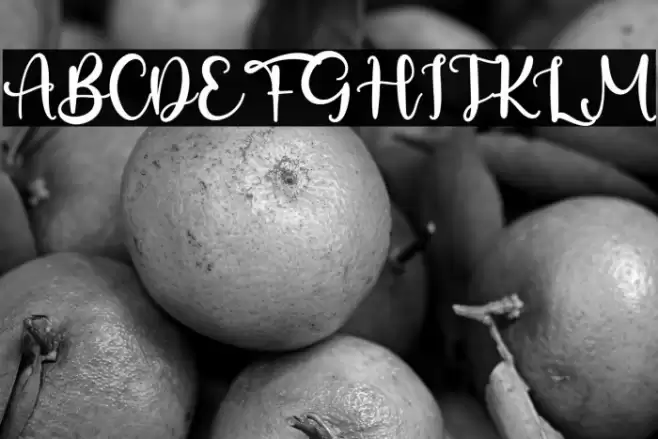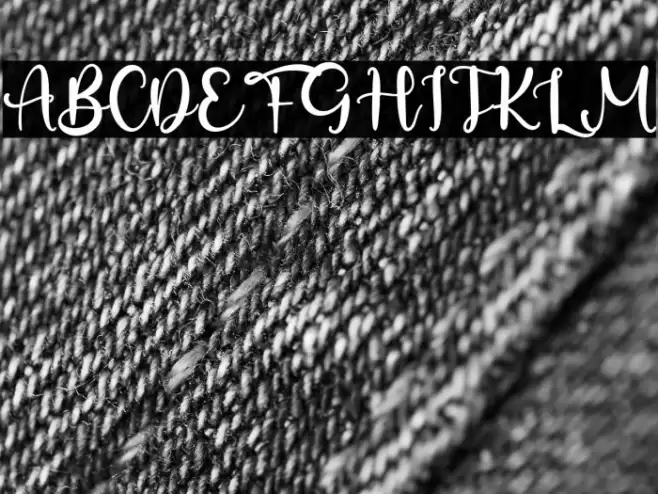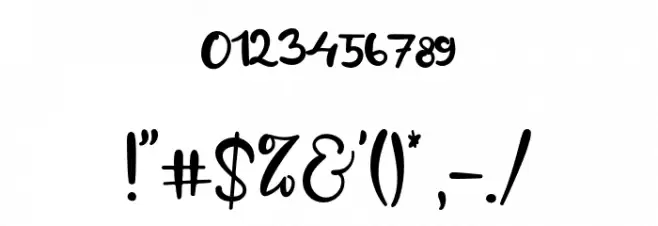
SabasRenate Font
SabasRenate Description
This font features a playful and elegant script style with a handwritten appearance. The letters are connected in a fluid manner, giving it a natural and personal touch. The uppercase letters are bold and slightly larger, while the lowercase letters maintain a consistent flow. The numbers and special characters are designed to match the overall style, ensuring a cohesive look. The strokes are thick, providing a strong presence, yet the curves and loops add a softness that balances the boldness. This font is perfect for creating a warm and inviting atmosphere.
- Proposed Projects: Ideal for wedding invitations, greeting cards, branding, and social media graphics.
- Use Case: Logos, Headlines, Invitations